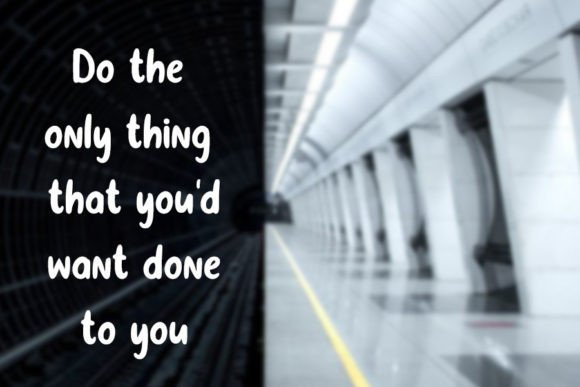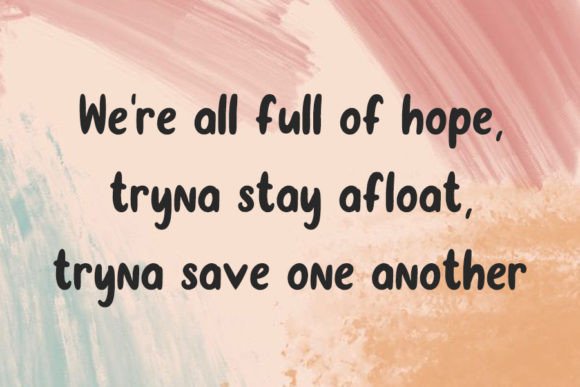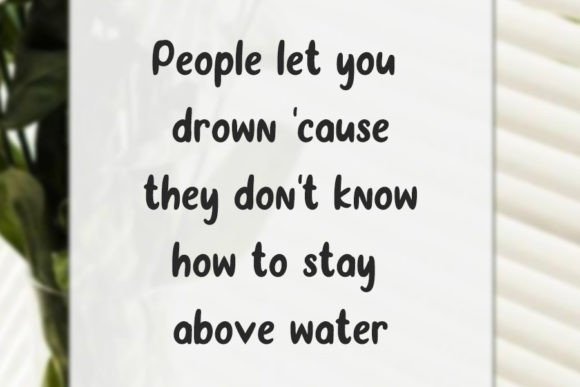
Introducing Cooly Font: The Perfect Handwritten Touch for Your Designs
In the world of digital design, fonts play a crucial role in conveying the tone and personality of a project. If you’re looking for a font that adds a touch of warmth and personality to your designs, look no further than Cooly Font. This casual and authentic handwritten font is perfect for designers and crafters who want to add a personal touch to their work.
What is Cooly Font?
Cooly Font is a beautifully crafted handwritten font that exudes a sense of casual elegance. Its unique and authentic style makes it perfect for a wide range of design projects, from social media posts and invitations to greeting cards and more. With Cooly Font, you can add a touch of warmth and personality to your designs, making them stand out from the crowd.
Key Features of Cooly Font
- Casual and Authentic Style: Cooly Font boasts a casual and authentic handwritten style that adds a touch of warmth to your designs.
- Perfect for Social Media Posts: With its clear and readable design, Cooly Font is ideal for social media posts, making it easy to connect with your audience.
- Ideal for Invitations and Greeting Cards: Cooly Font’s elegant and sophisticated style makes it perfect for invitations, greeting cards, and other special occasion designs.
- Easy to Read and Understand: Cooly Font is designed to be easy to read and understand, making it perfect for designs that require clear communication.
Benefits of Using Cooly Font
Using Cooly Font in your designs offers a range of benefits, including:
- Unique and Authentic Style: Cooly Font’s unique and authentic style sets it apart from other fonts, making your designs stand out from the crowd.
- Emotional Connection: The casual and handwritten style of Cooly Font helps to create an emotional connection with your audience, making your designs more relatable and engaging.
- Versatility: Cooly Font is versatile and can be used in a wide range of design projects, from digital designs to print materials.
How to Use Cooly Font in Your Designs
Using Cooly Font in your designs is easy. Here are a few tips to get you started:
- Pair with Other Fonts: Cooly Font pairs well with other fonts, making it easy to create a unique and visually appealing design.
- Experiment with Colors: Cooly Font looks great in a range of colors, so don’t be afraid to experiment and find the perfect color scheme for your design.
- Use in Digital and Print Materials: Cooly Font can be used in both digital and print materials, making it a versatile addition to your design toolkit.
Who Can Benefit from Cooly Font?
Cooly Font is perfect for a range of designers and crafters, including:
- Graphic Designers: Cooly Font is a great addition to any graphic designer’s toolkit, providing a unique and authentic style for a wide range of design projects.
- Social Media Managers: Cooly Font is perfect for social media managers who want to add a personal touch to their social media posts.
- Crafters and Scrapbookers: Cooly Font is a great choice for crafters and scrapbookers who want to add a touch of elegance and sophistication to their projects.
| Font Name | Cooly Font |
| Author | SoulusYid |
In conclusion, Cooly Font is a beautiful and authentic handwritten font that adds a touch of warmth and personality to any design project. With its casual and elegant style, Cooly Font is perfect for a wide range of design projects, from social media posts and invitations to greeting cards and more. Whether you’re a graphic designer, social media manager, or crafter, Cooly Font is a great addition to your design toolkit.